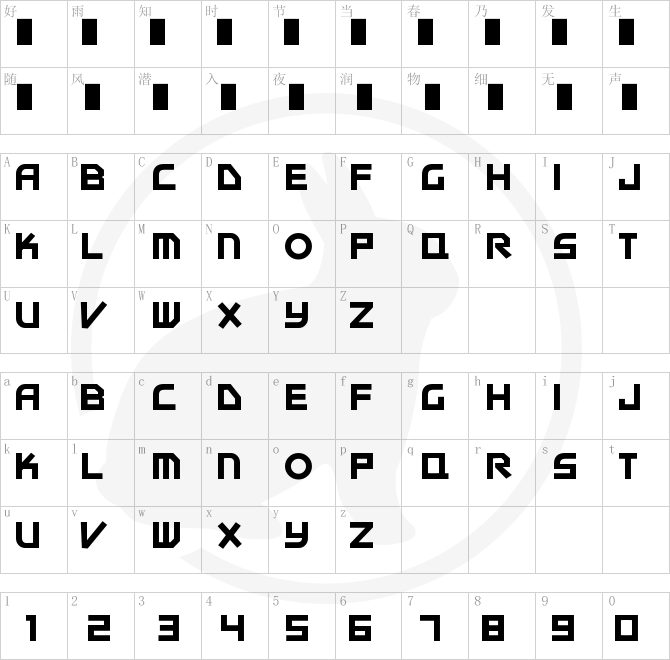
- Font Name:E4 Craze
E4-Craze.ttf is a very beautiful artistic font, E4-Craze.ttf is widely used in the design and printing of various books and pictures,E4-Craze.ttf has a strong visual impact,E4-Craze.ttf is a commonly used font in newspapers, magazines and books, and is used in posters, e-commerce Poster design, store design, logo design, font design and other fields.E4-Craze.